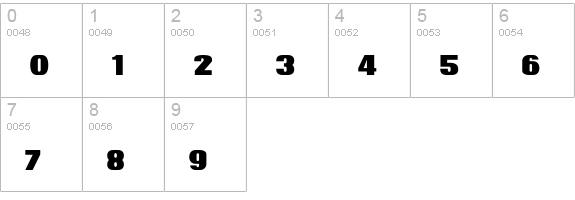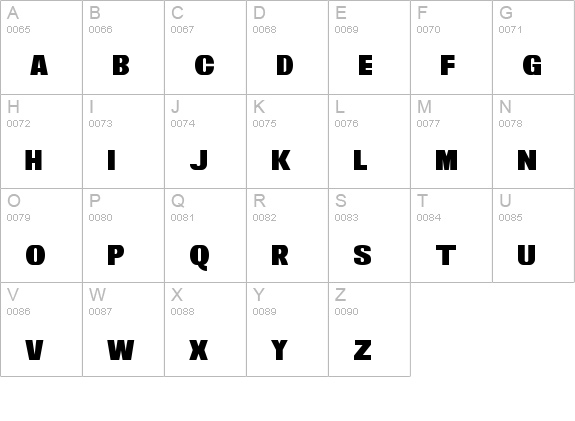
News of the World Regular is the standard, neutral variant in the News typeface family \xE2\x80\x94 well suited to general body text, paragraphs, and standard typographic work.
News of the World Regular font is a visually captivating typeface that effortlessly combines elegance and legibility. With its clean lines and balanced proportions, this font is perfect for a wide range of design projects, from editorial layouts to branding materials. This versatile font is not only pleasing to the eye but also offers a sense of familiarity and reliability, making it an excellent choice for both print and digital media. Its timeless appeal ensures that your message will be conveyed with clarity and sophistication. One of the most remarkable aspects of News of the World Regular font is that it is freely available to download at FontsMarket.com. This means that you can access this stunning font without any cost, allowing you to enhance your creative endeavors without breaking the bank. Whether you are a professional designer, a student, or someone with a passion for typography, News of the World Regular font is a must-have. Its versatility, elegance, and accessibility make it an invaluable addition to your font collection. Download News of the World Regular font for free at FontsMarket.com and bring a touch of sophistication and clarity to your designs. Don't miss out on this opportunity to enhance your creative projects with this exceptional font.